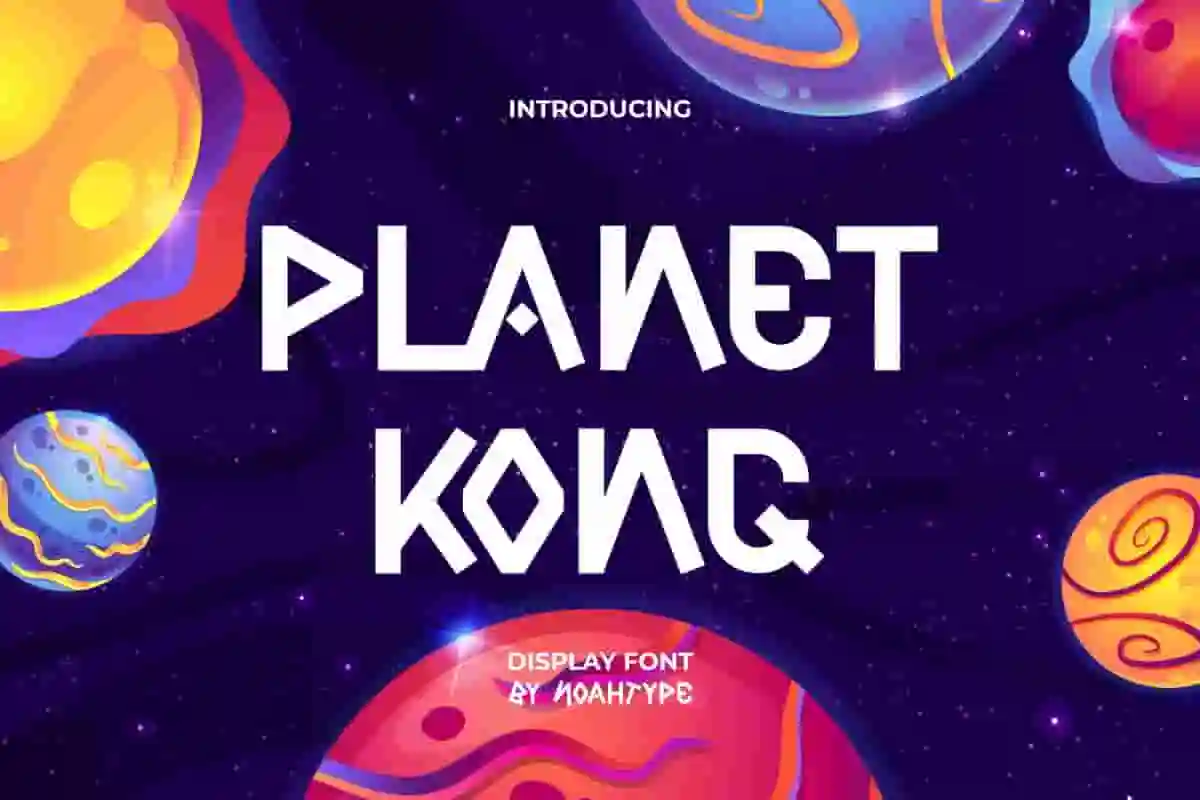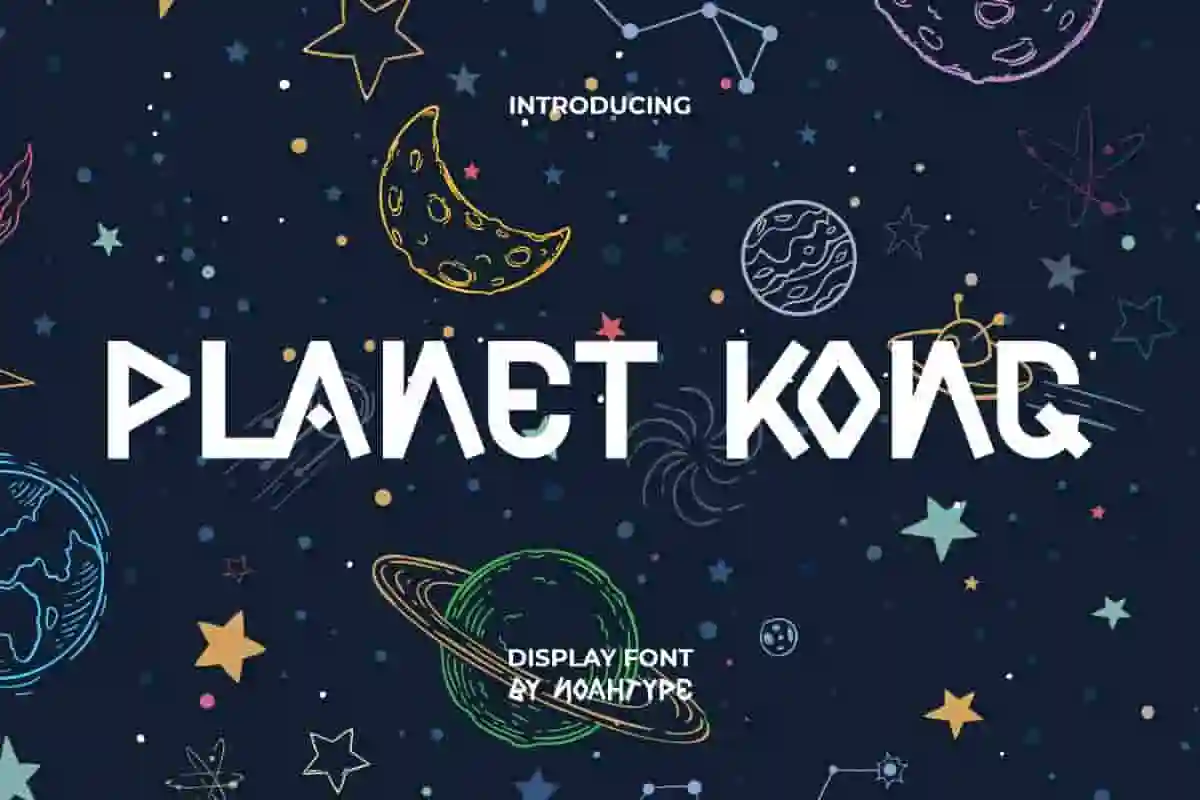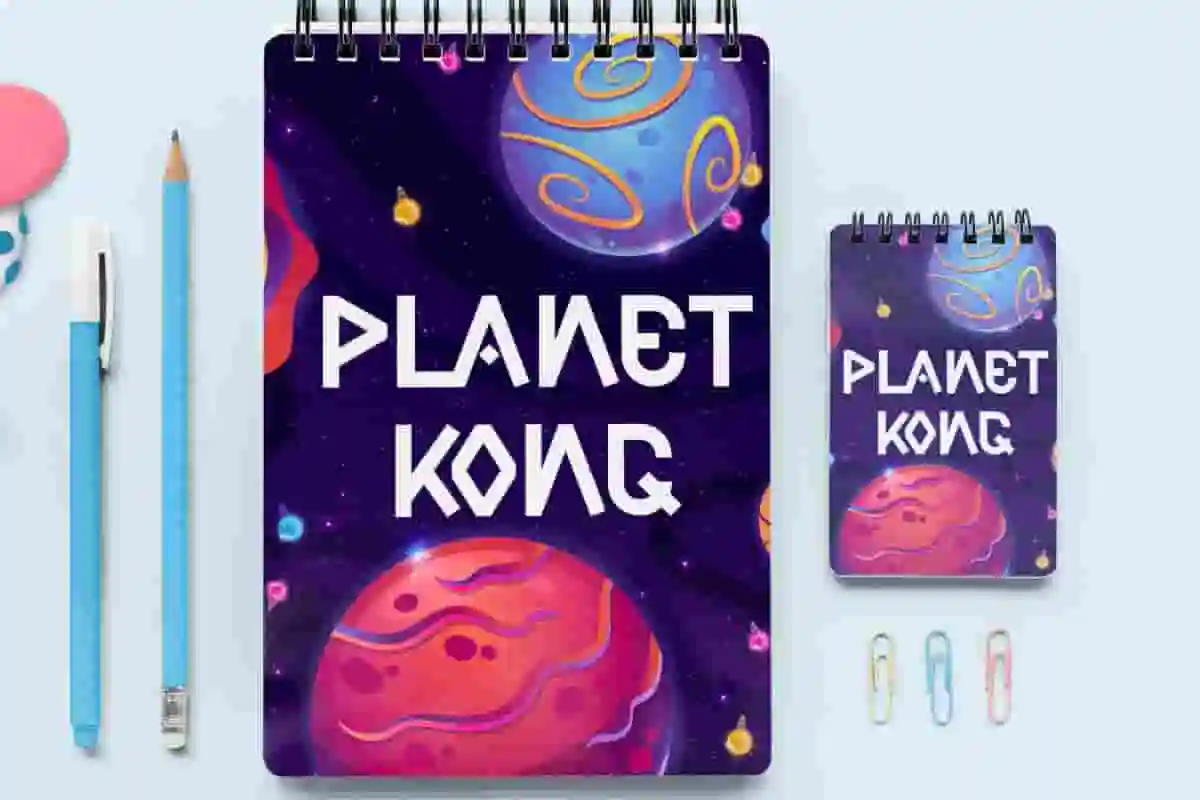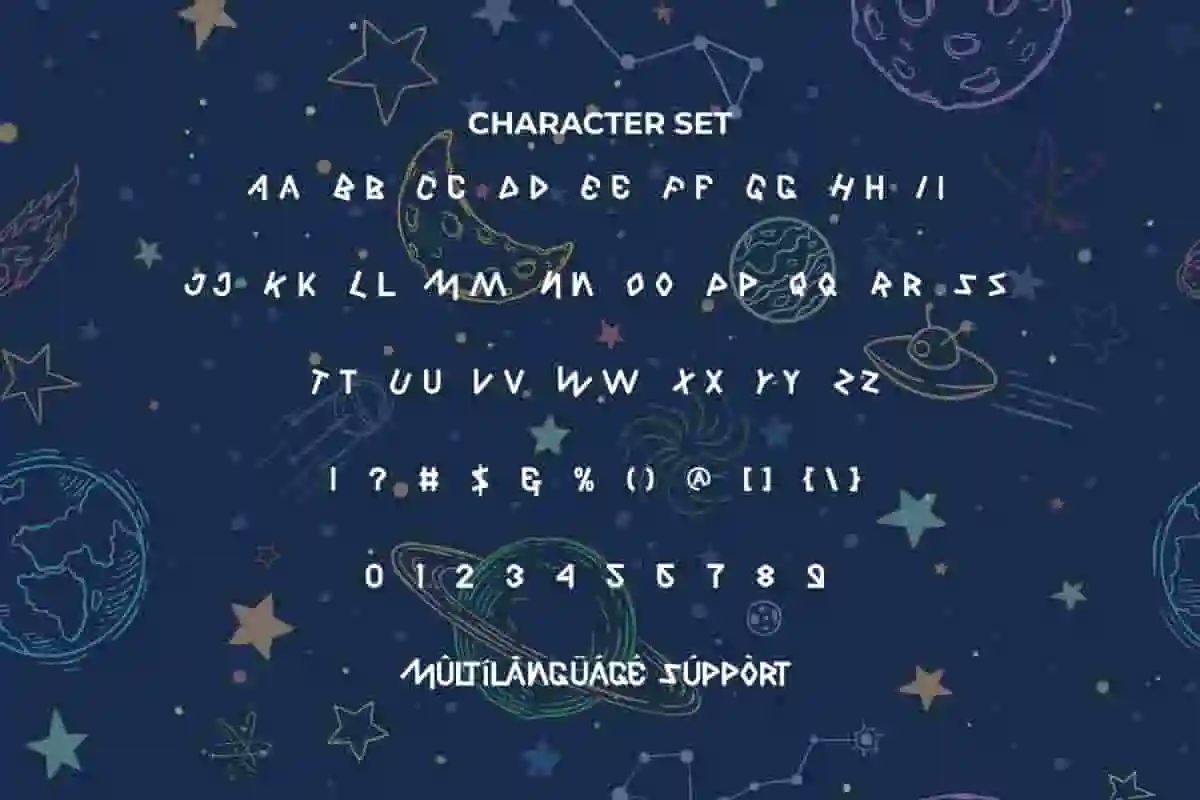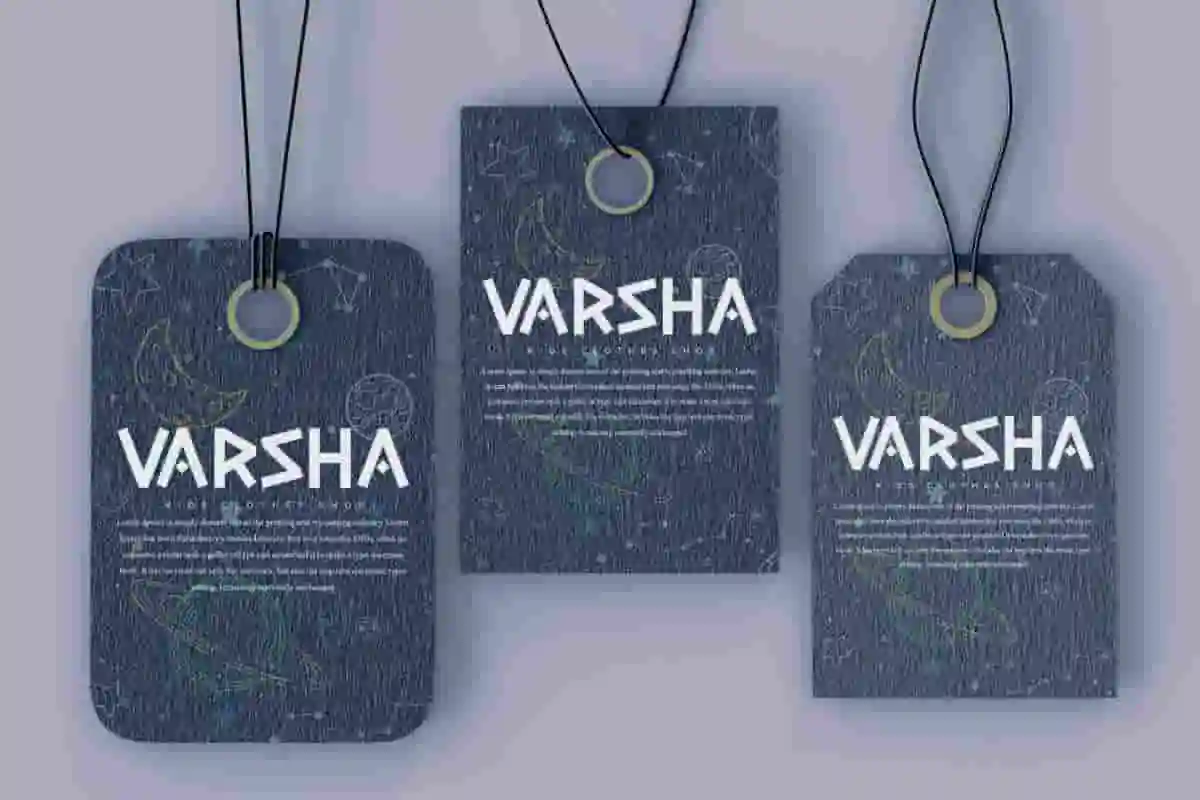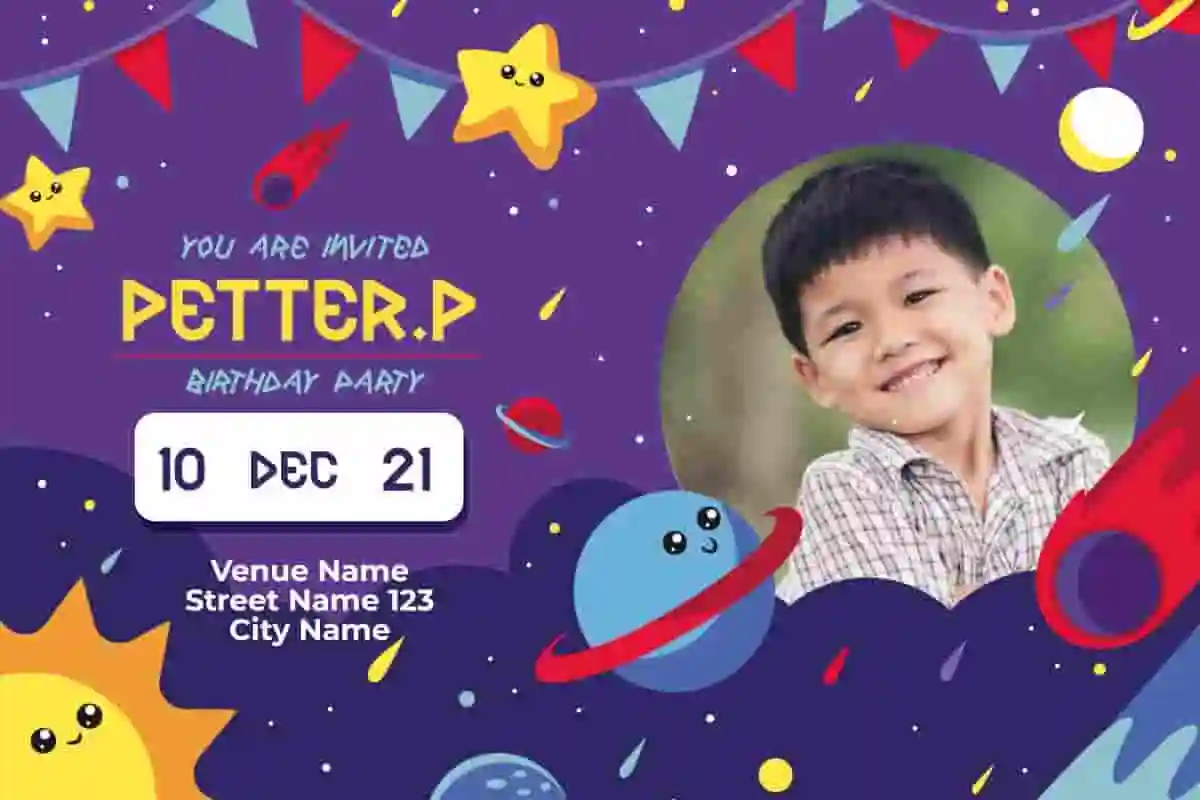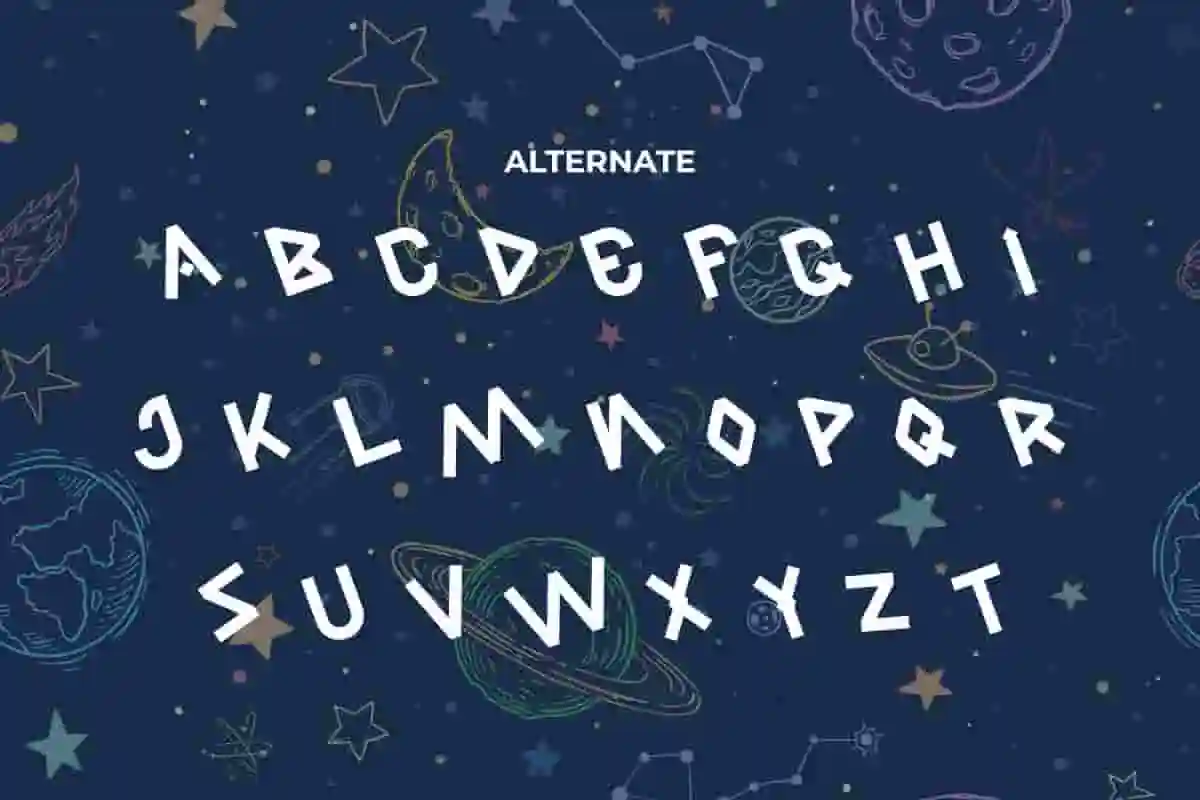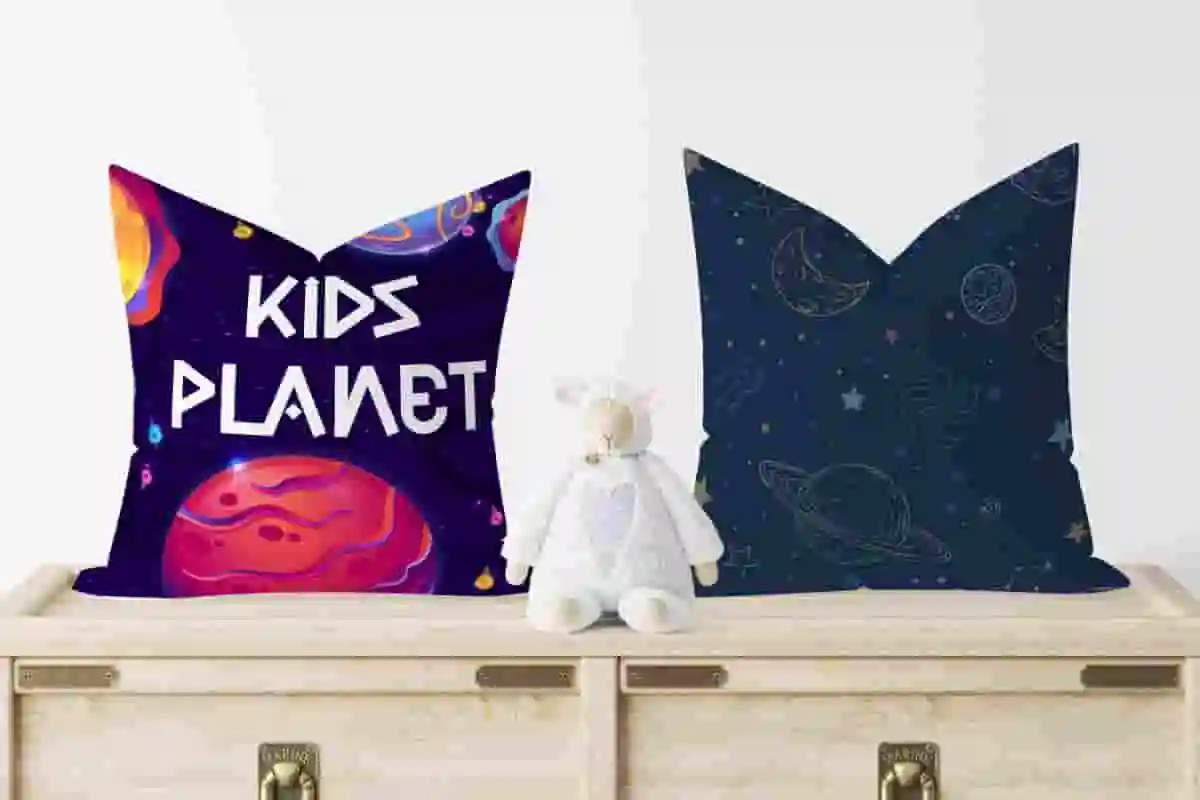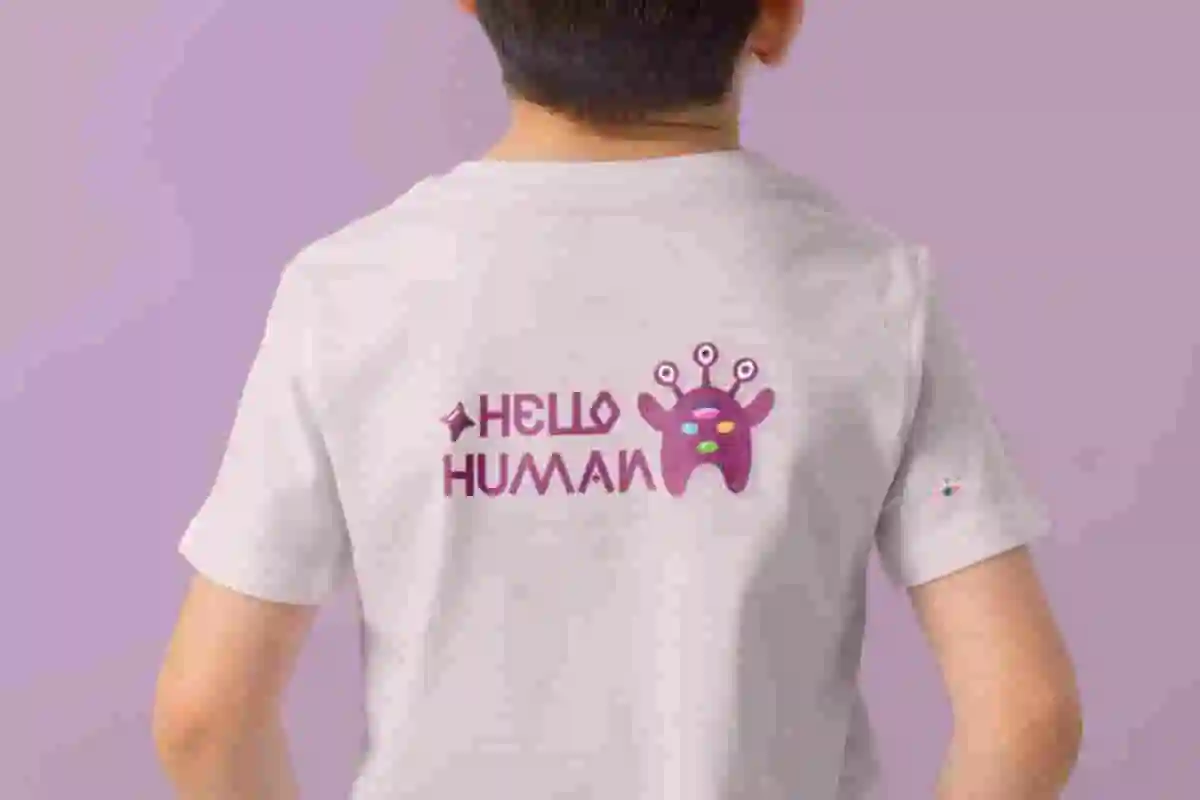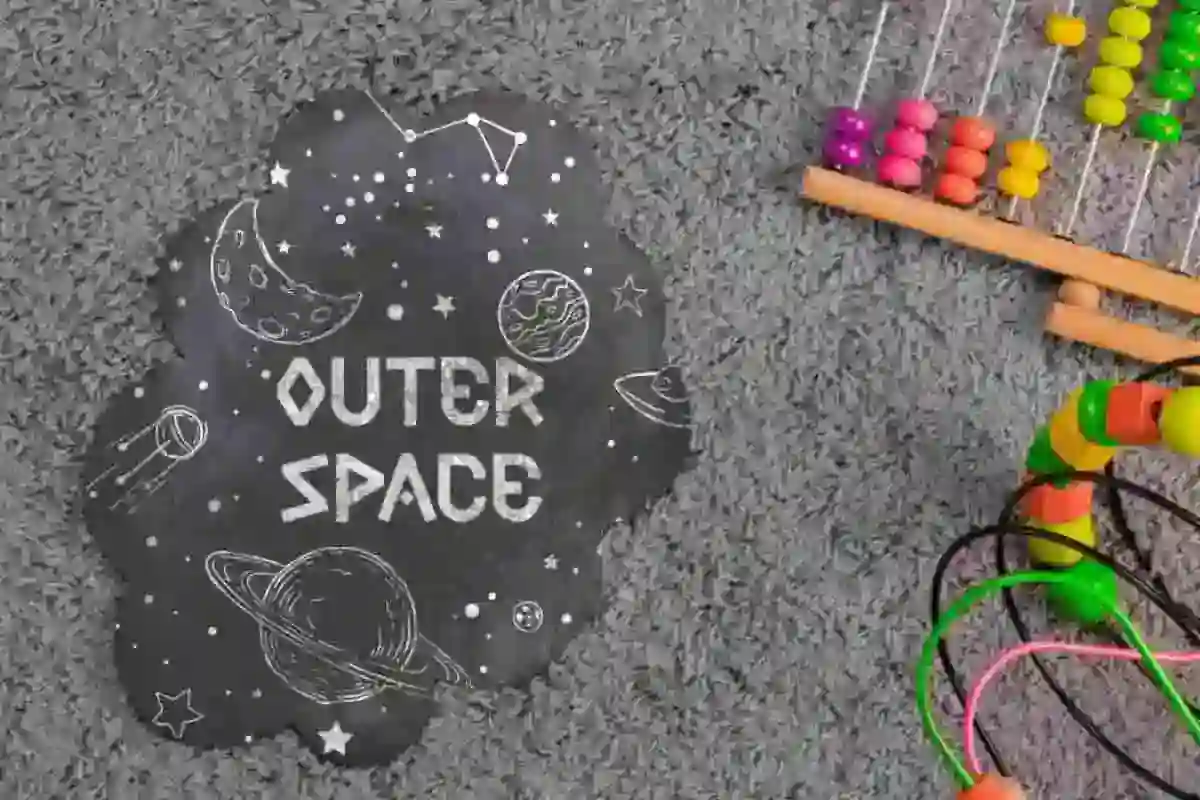
Planet Kong Font
Planet Kong Font is a fun playful display font that will bring joy, happiness and cheerful looks. This font will suit many project designs, such as brand image, business card, cartoon, catalog, comic, cover, custom design, invitation, label, menu, poster, quote, stationery, web, and more!
Planet Kong Font includes full set of ALL CAPS for both Uppercase and Lowercase Basic Characters, Numerals and Punctuation. This font also contain Alternate characters that will give cool and cute appearances and perfect choice for many industries, such as advertisement, café, event organizer, food and beverage, fashion, kids stuff, restaurant, printing, publishing, stuff, etc.